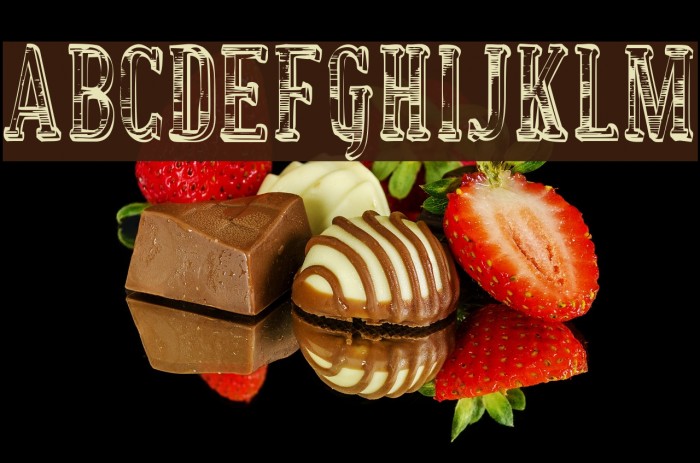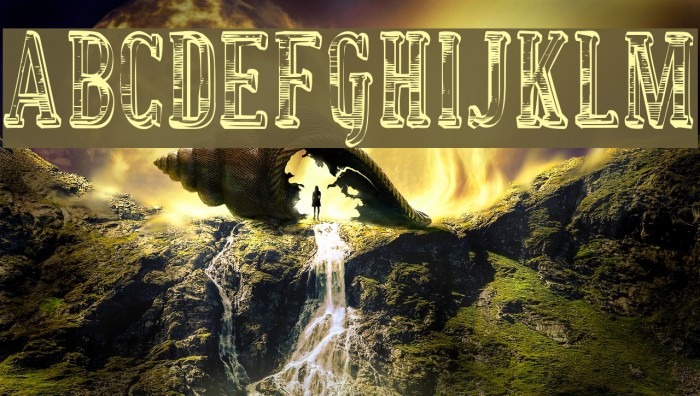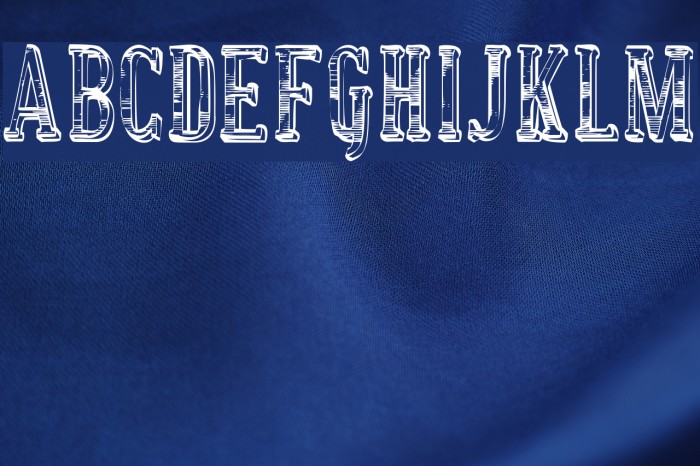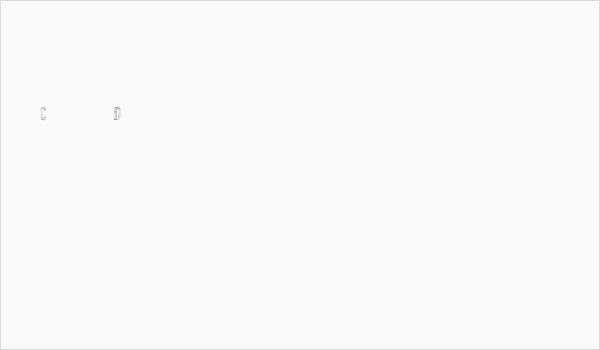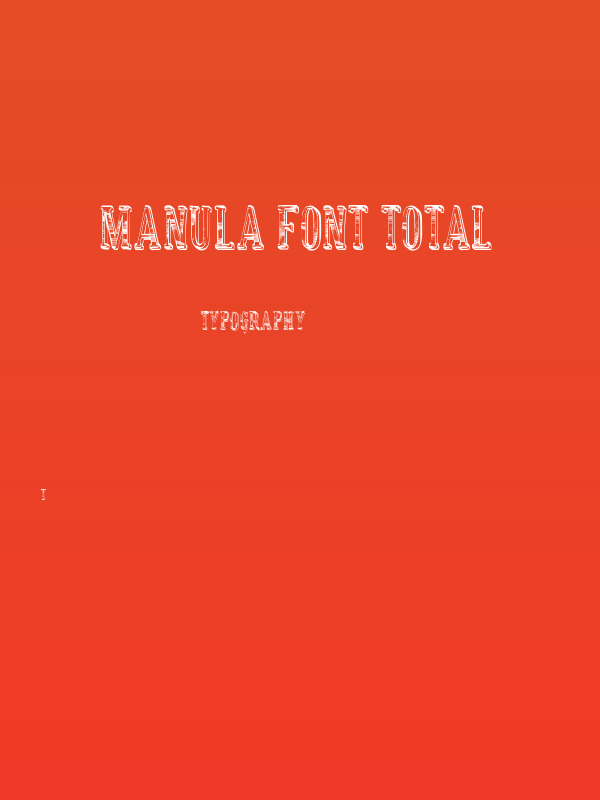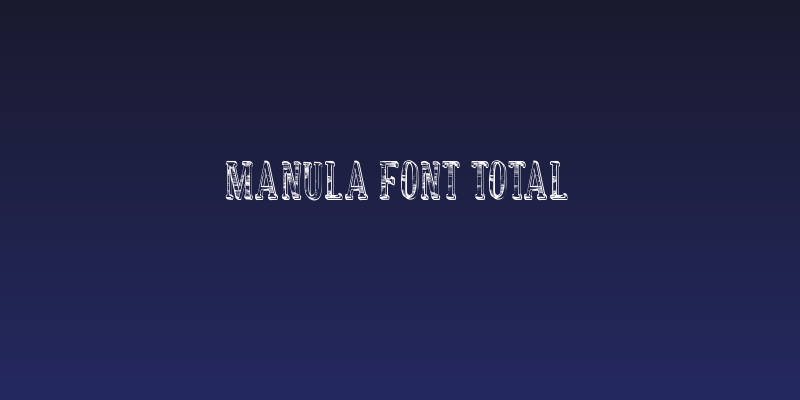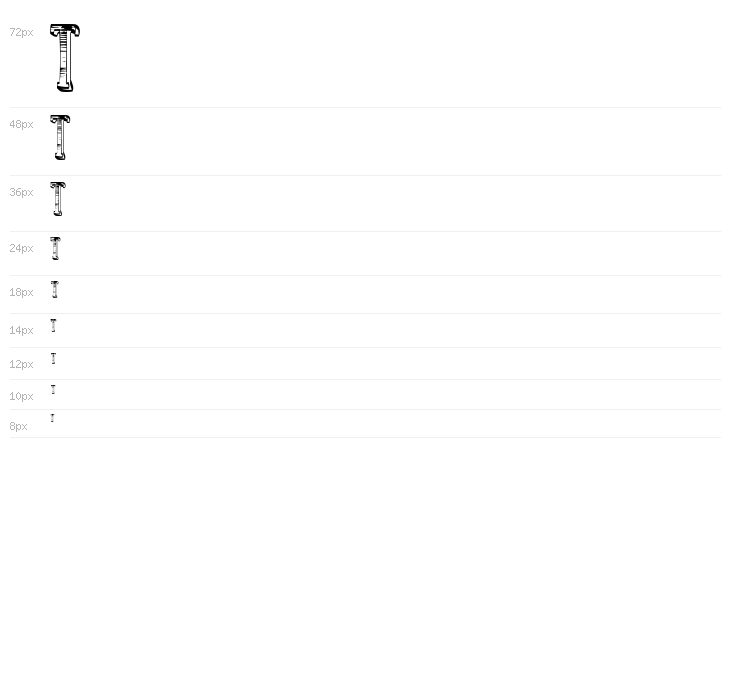
manula font total Font
manula font total Description
This font features a bold and decorative style with intricate detailing within each character. The letters are uppercase and exhibit a vintage, hand-drawn aesthetic, reminiscent of old-fashioned signage or posters. The strokes are thick with a high contrast, and the design includes subtle shading and line work that adds depth and texture. The overall appearance is both artistic and eye-catching, making it suitable for projects that require a strong visual impact.
A bold, decorative font with a vintage, hand-drawn aesthetic from Uncategorized fonts.
- Font: manula font total
- Proposed Projects: Ideal for vintage-themed posters, signage, branding, and artistic projects that require a strong visual impact.
- Overall Style: Vintage